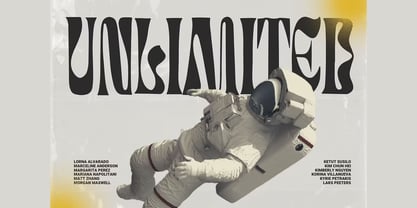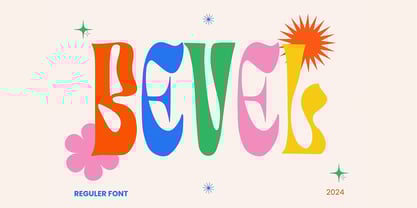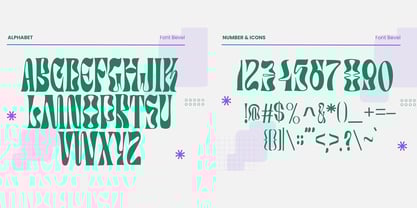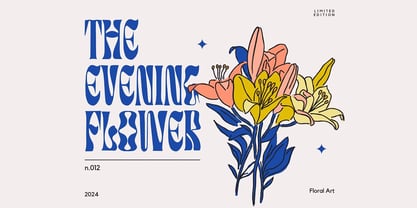
Bevel
by Maghrib Type
The Bevel Font Family was designed by Rizky Setyaludin and published by Maghrib Type. Bevel contains 1 styles. More about this family
Bevel is a bold and expressive display font inspired by the psychedelic aesthetics of the 1970s, combined with a touch of contemporary design. Its thick, dynamic letterforms feature fluid curves and sharp inner cuts, creating a striking and energetic visual effect.
Carefully crafted to stand out, Bevel is perfect for posters, album covers, creative branding, editorial design, packaging, and any visual project that calls for a unique and daring personality.
Each character in Bevel is meticulously designed with attention to detail, delivering a lively and unpredictable rhythm. The font includes a complete set of uppercase letters, numbers, punctuation, and distinctive symbols that support its eccentric yet functional style.